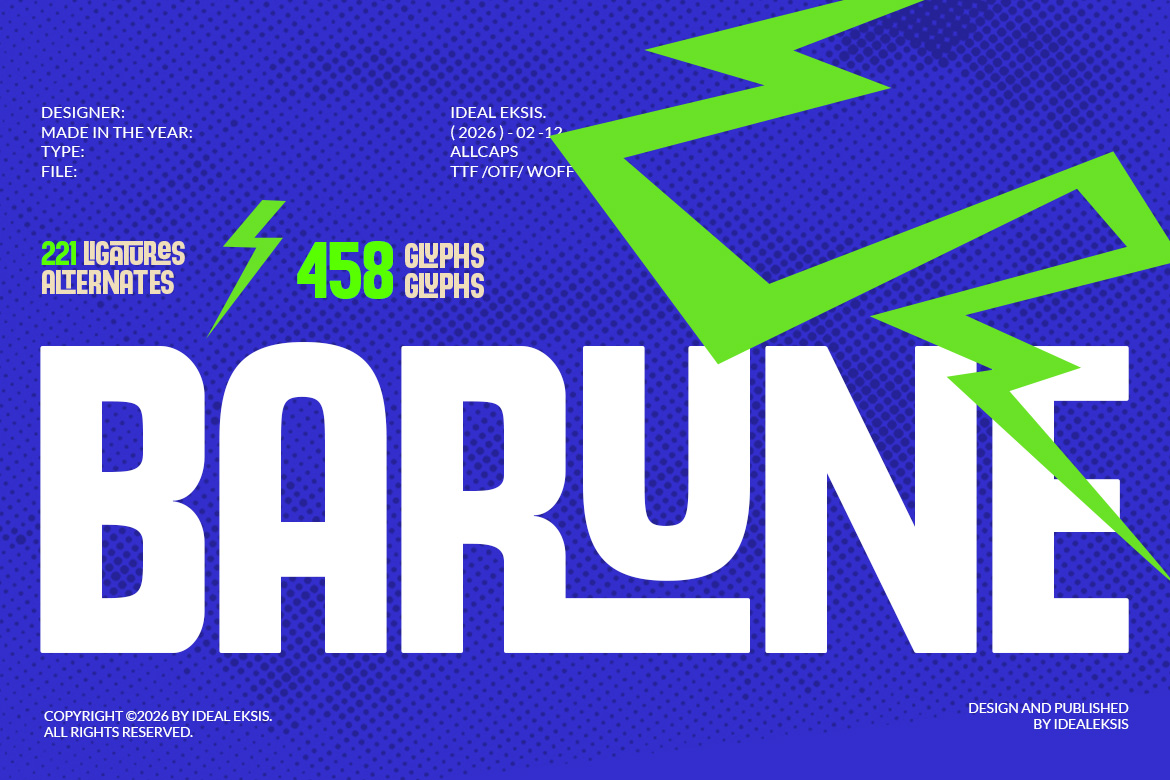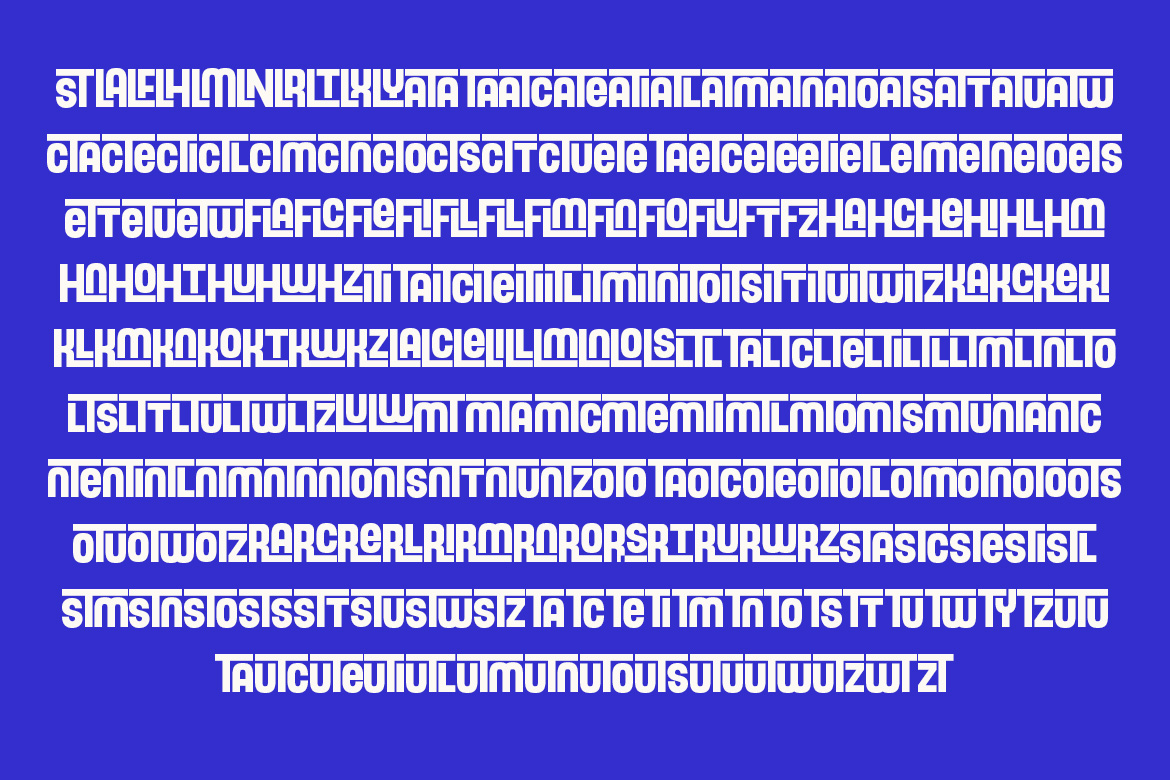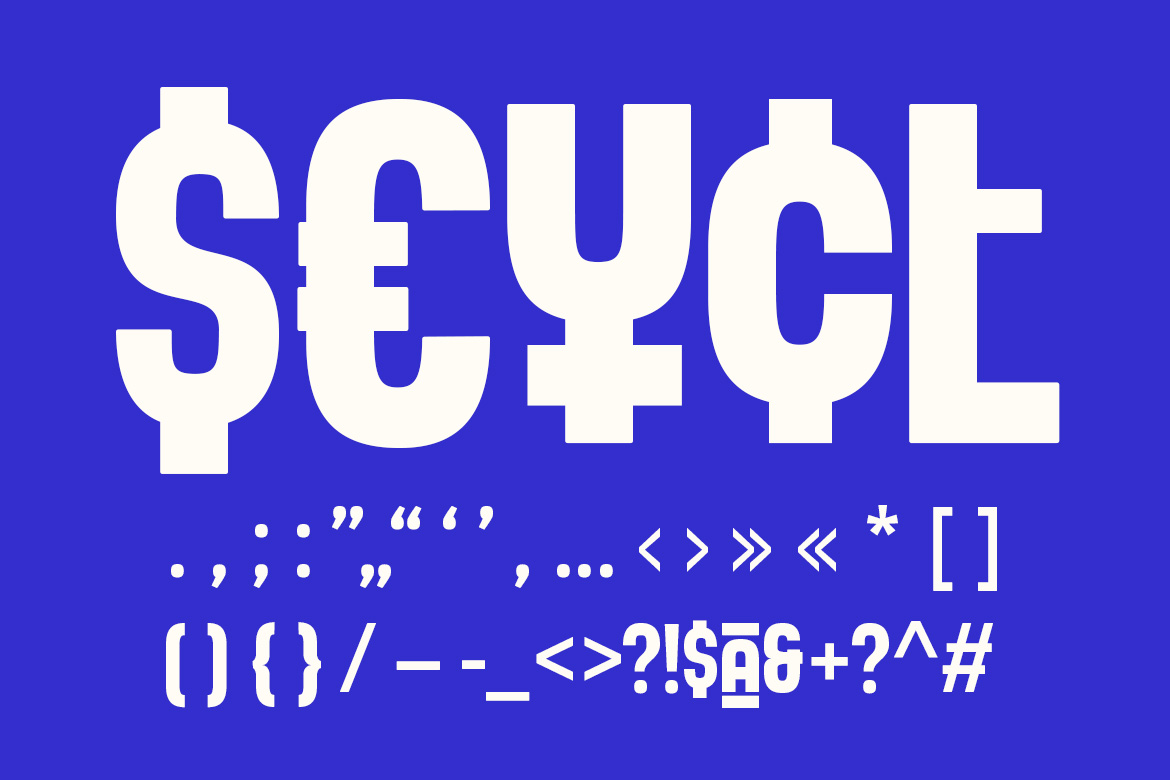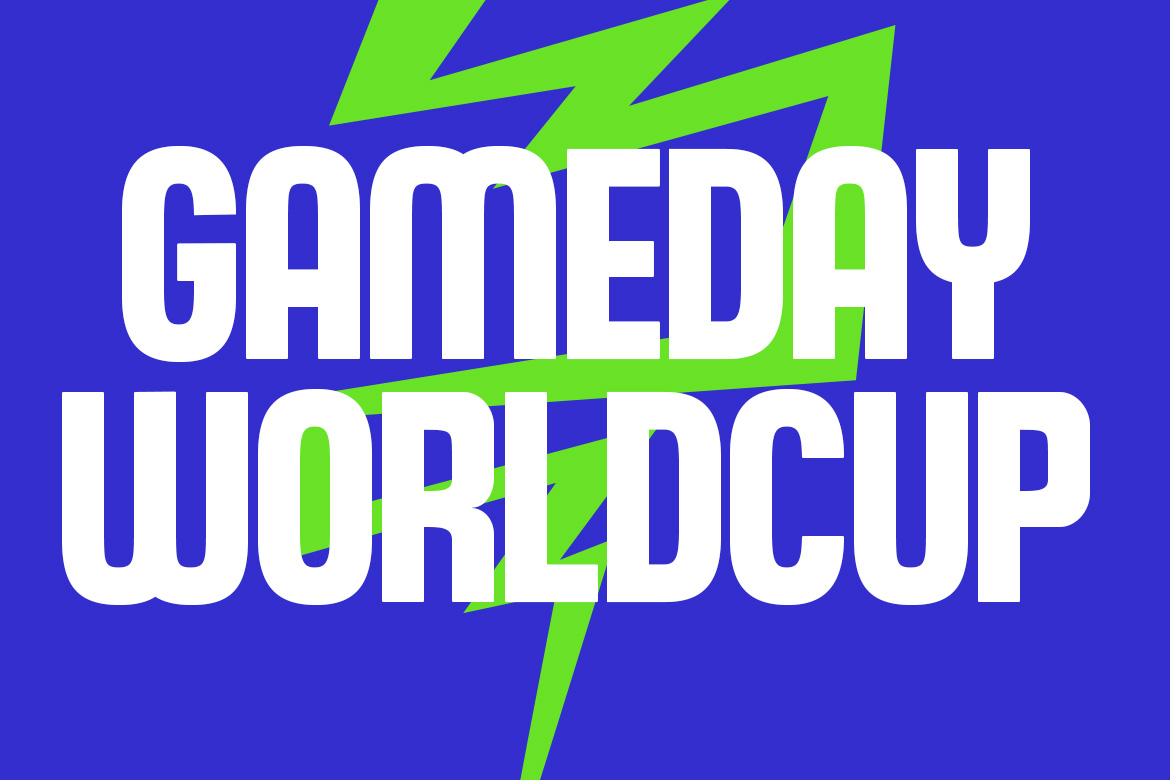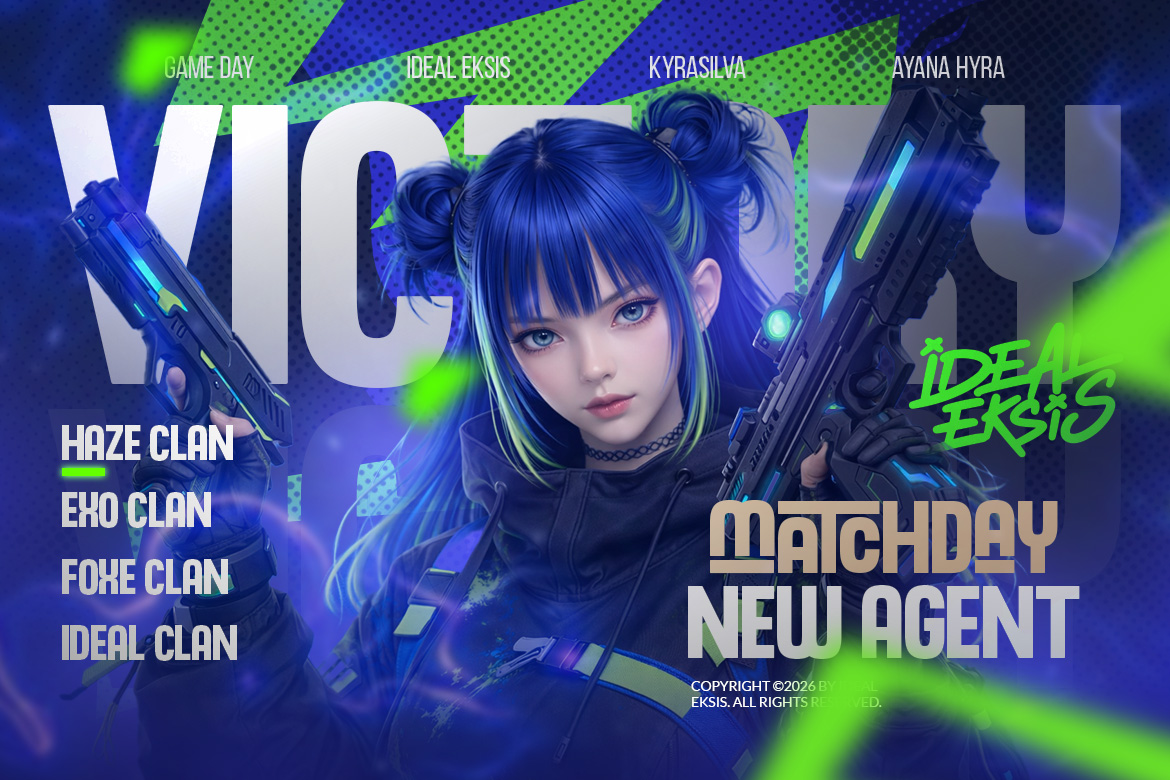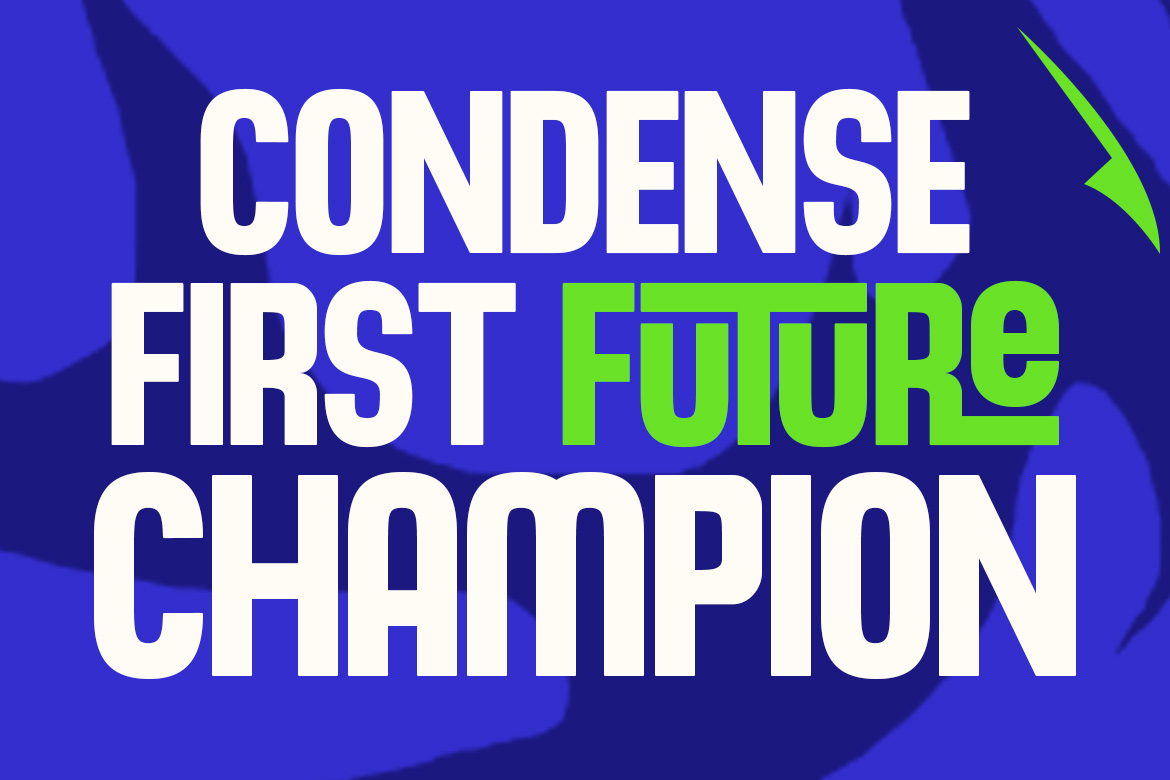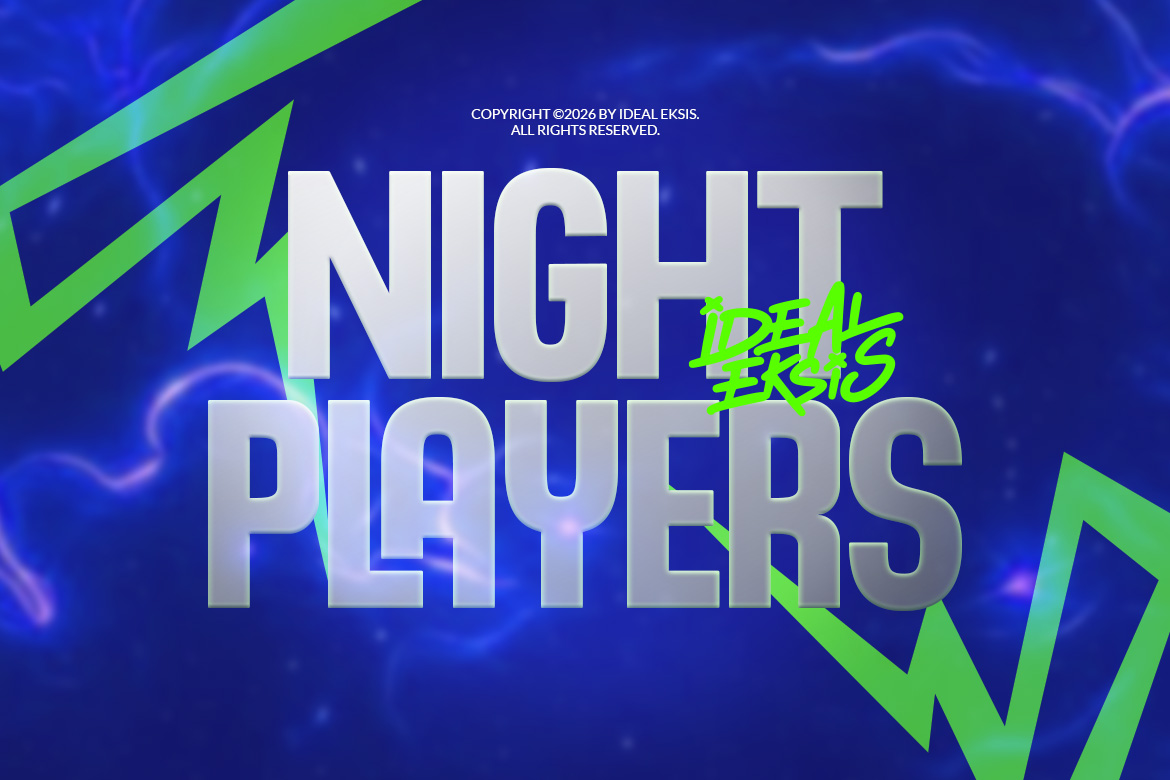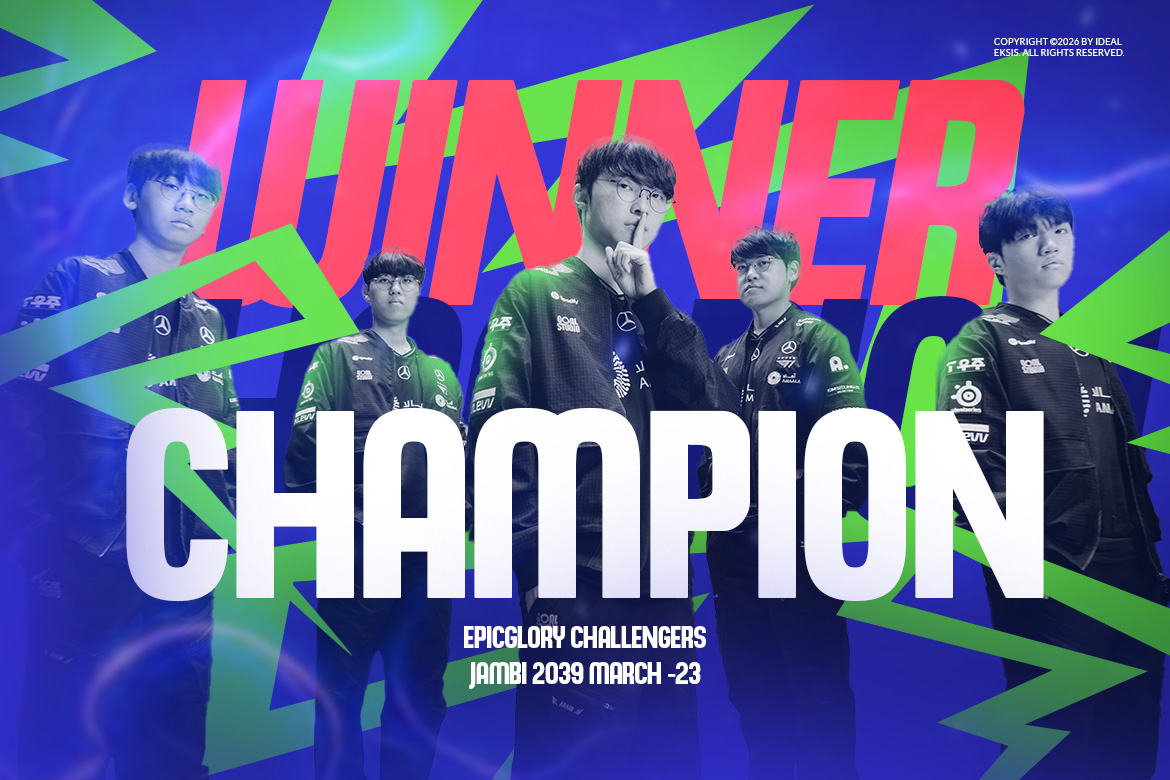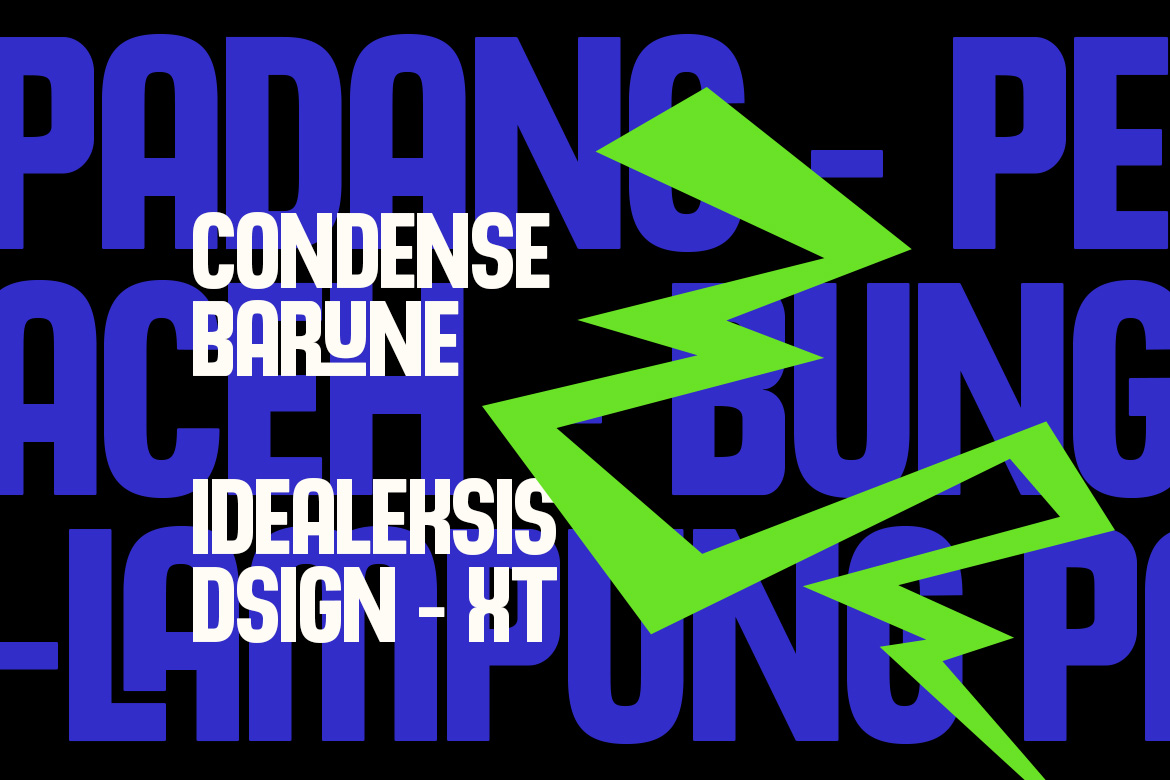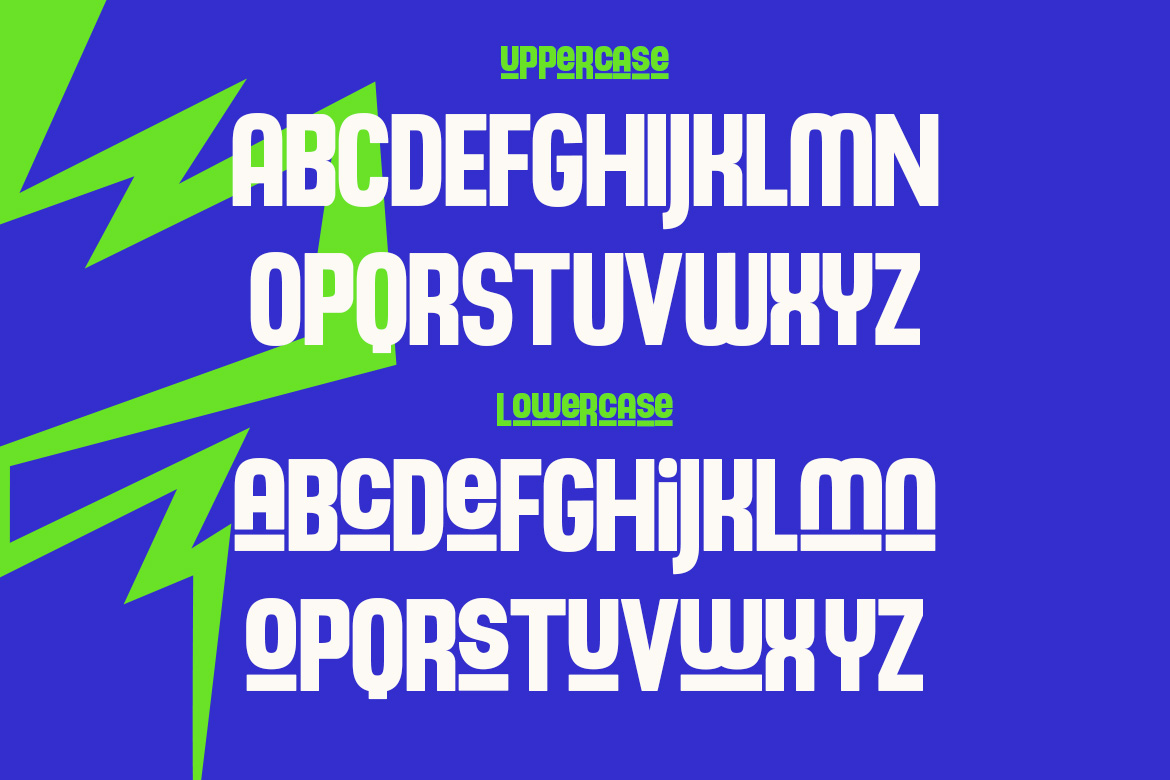
Display typeface · Latin
Barune
Barune is a heavy, ultra-bold display typeface characterized by its massive weight and tight letter spacing. In Package : OTF TTF WOFF WOFF2 Feature : Uppercase (All Caps) Alternate Ligatures Multilingual Numerals Punctuation Easy To Install Perfect For: Racing team logos Automotive branding Motorsport events Gaming & esports Sports apparel design YouTube & streaming thumbnails Tech & performance branding Posters & promotional graphics